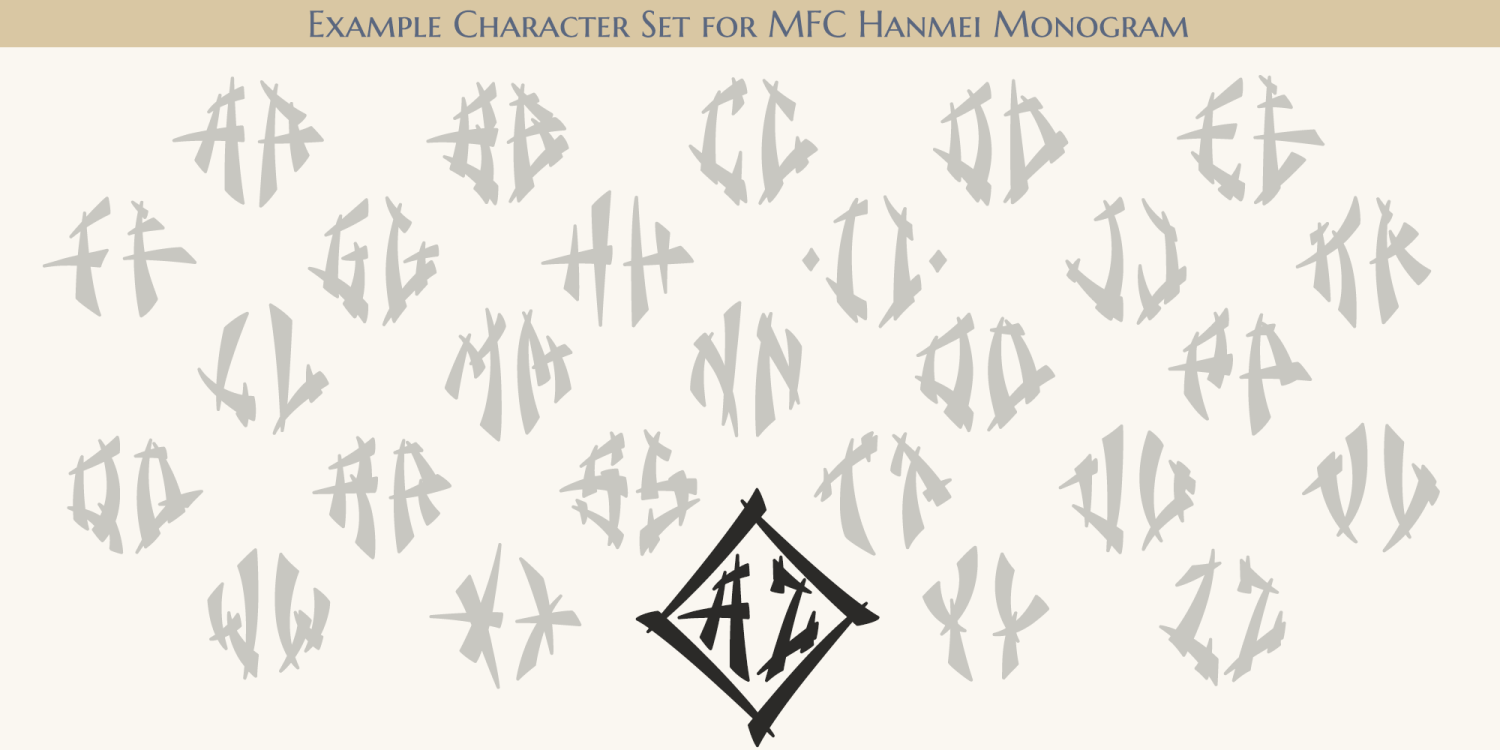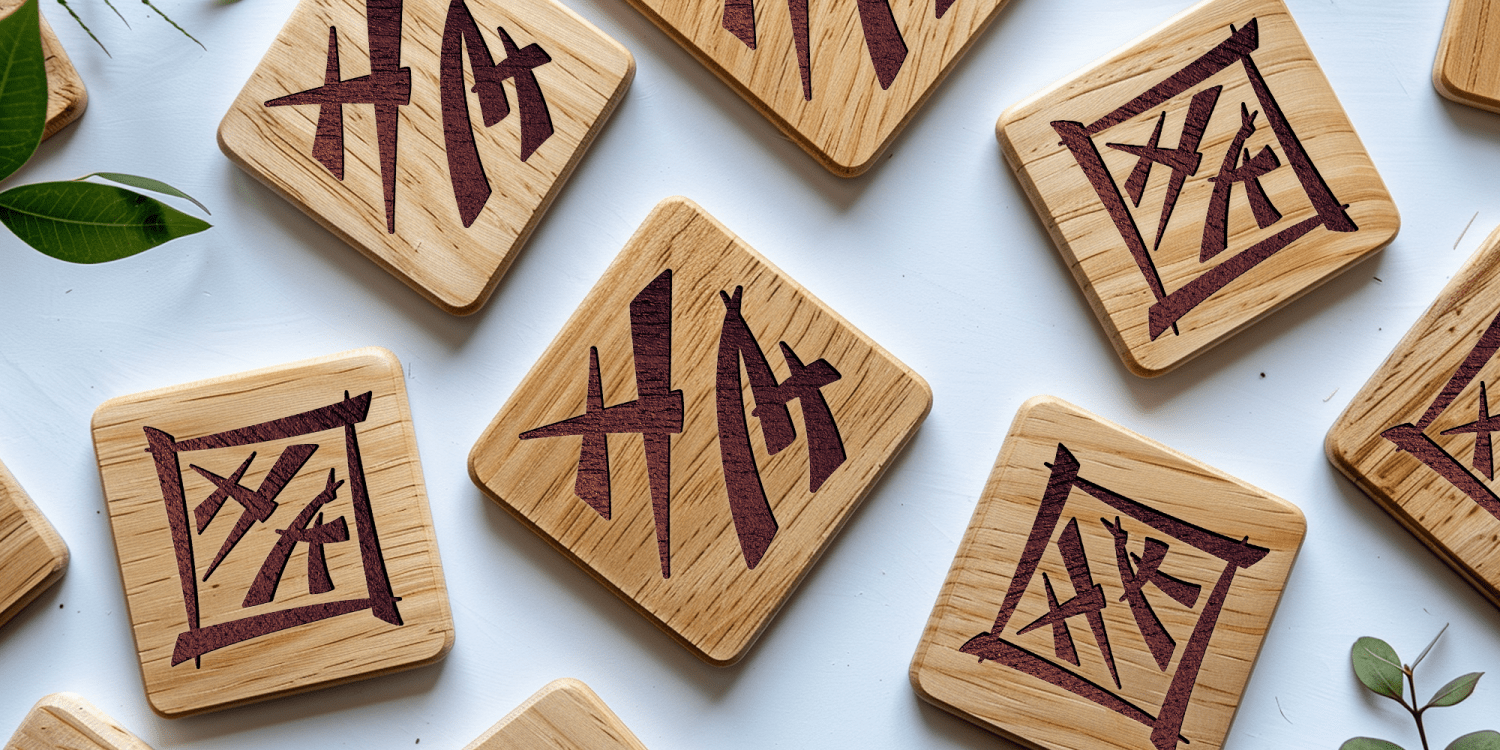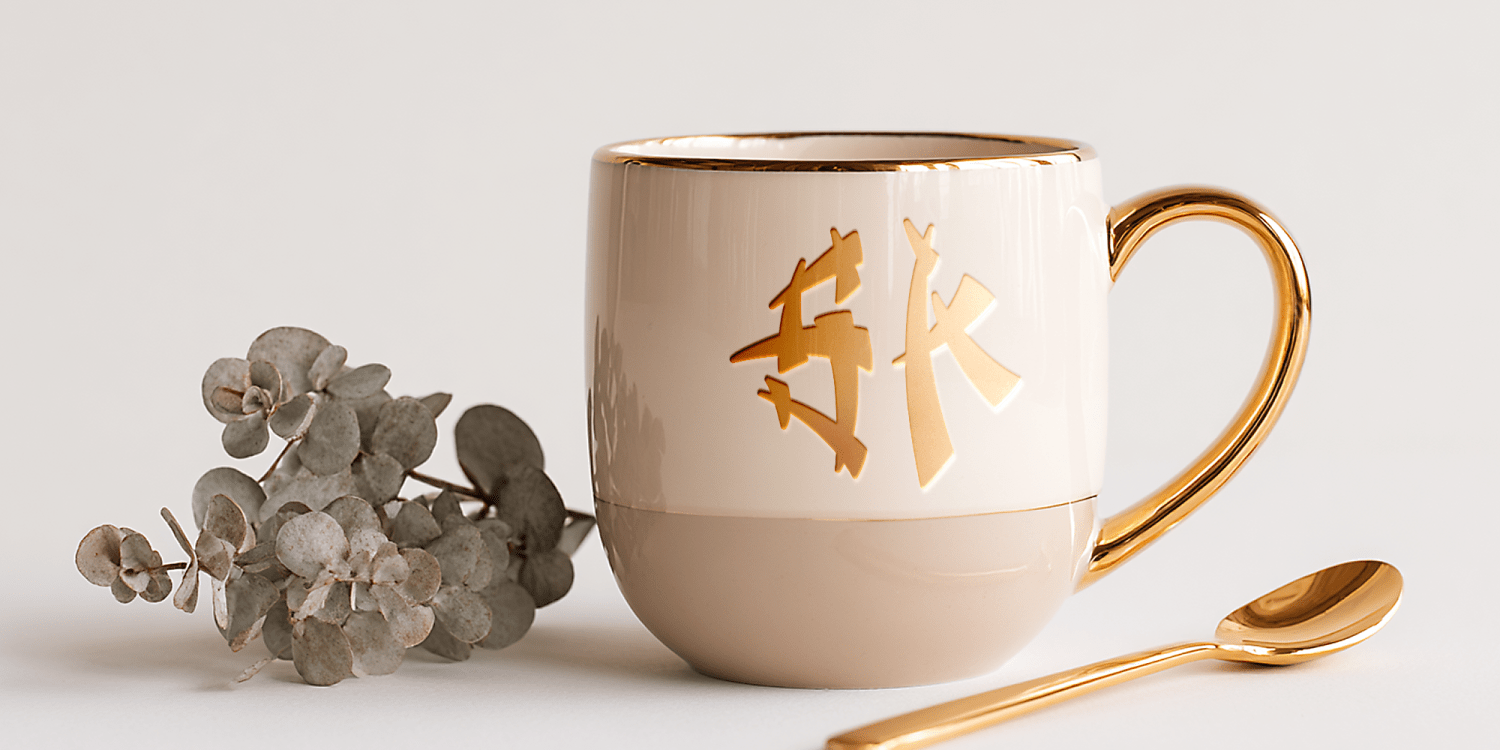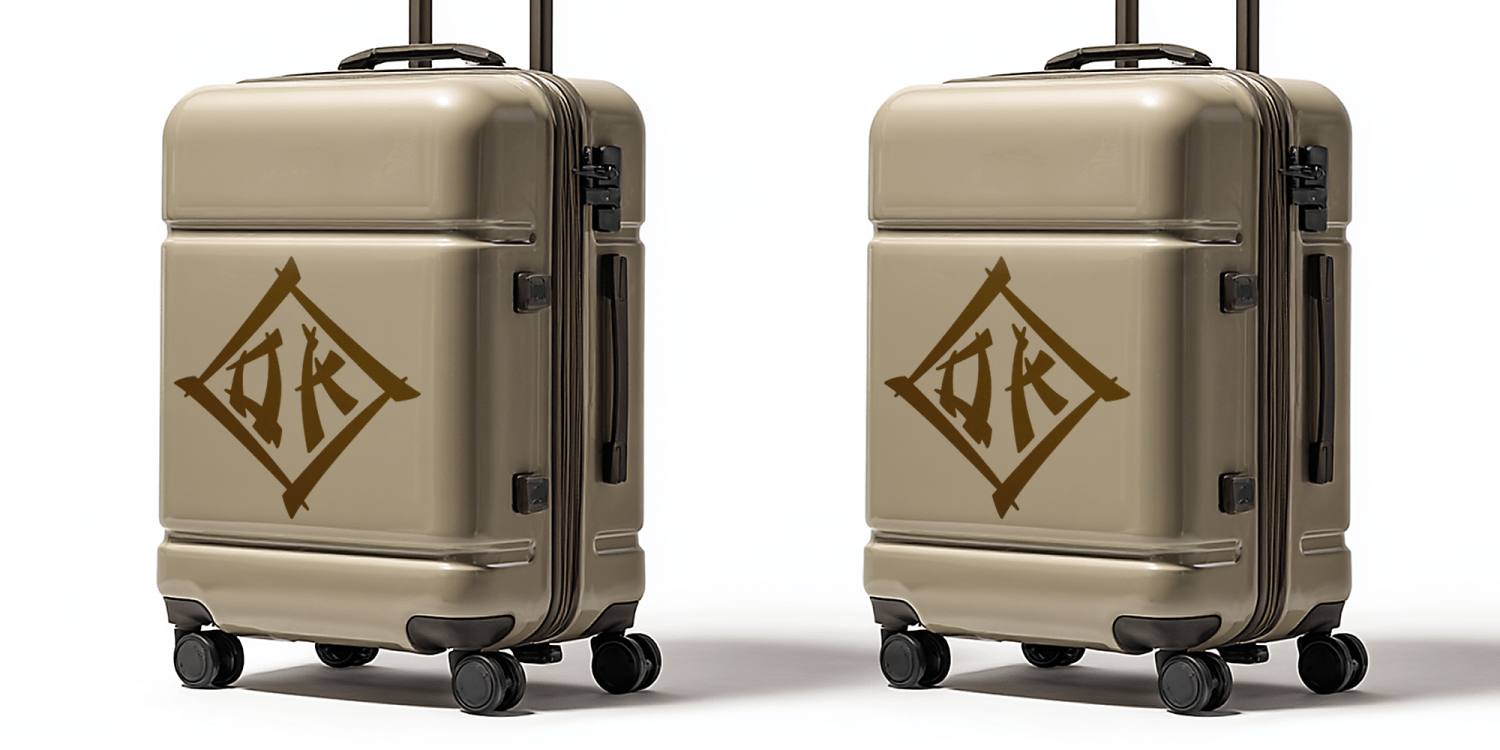
MFC Hanmei Monogram
MFC Hanmei Monogram is a distinctive display monogram inspired by the elegant tension of East Asian calligraphy and the ceremonial geometry of traditional crestwork. Designed with the signature refinement of Monogram Fonts Co, MFC Hanmei Monogram blends expressive brush-like strokes with a bold, diamond-framed architecture that gives every pair of initials an immediate sense of importance and artistry.
Each monogram is built from angular, ink-inspired strokes that echo carved seals, lacquered signage, and the timeless craft of hand-brushed characters. The optional surrounding diamond frame adds structure and formality, creating a striking balance between organic gesture and geometric intention. The result is a monogram style that feels at once ancient and contemporary—perfect for identities that demand presence, symbolism, and cultural depth.
Ideal for wedding suites, boutique branding, luxury packaging, ceremonial stationery, and any project seeking a monogram with expressive character, MFC Hanmei Monogram offers designers a beautifully stylized solution that stands apart from traditional engraved or serifed monogram styles.